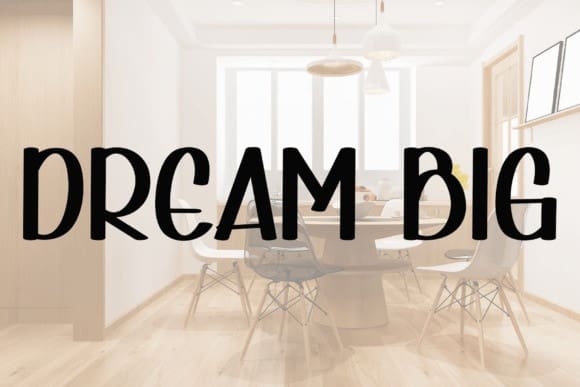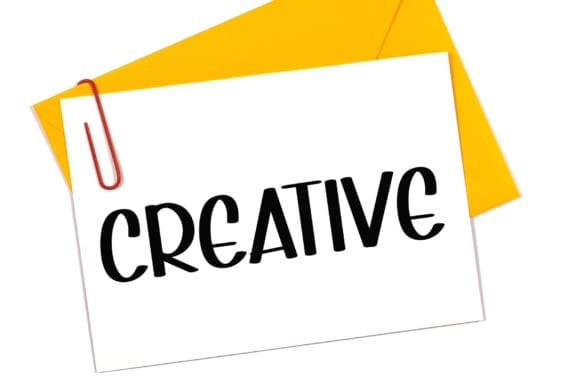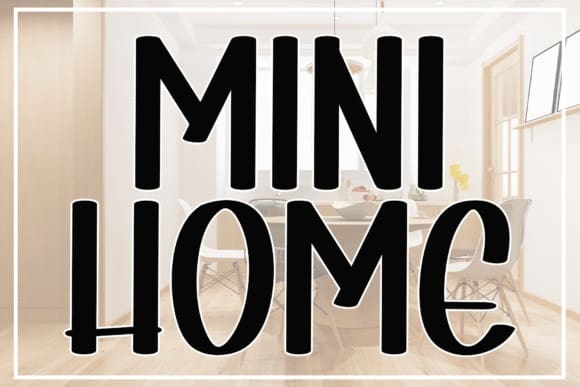
Mini Home Font
Mini Home Font is a cool and modern handwritten display font. Whether you’re using it for crafts, digital design, presentations, or creating greeting cards, this font has the potential to be your go-to font, whatever the occasion.